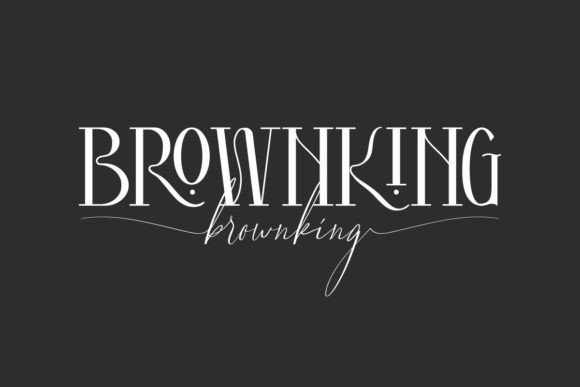
Dive into the world of Brownking Font, a captivating font duo that exudes elegance and sophistication. This mesmerizing font family, crafted by the talented vintype, features an alluring serif display font and a stunning calligraphy signature script, making it the perfect choice for designers seeking to create designs that leave a lasting impression.
With Brownking Font as your creative companion, you'll effortlessly elevate your projects to new heights. Whether you're designing logos, posters, branding, invitations, greeting cards, social media graphics, or any other visual masterpiece, this font duo will infuse your work with a unique and captivating charm. You'll find that Brownking Font seamlessly blends the classic beauty of serif typography with the flowing grace of calligraphy, resulting in designs that radiate sophistication and timeless elegance.
More than just a font, Brownking Font is an experience that will transform your creative journey. Let your imagination soar as you explore the endless possibilities that await with this versatile font duo. You'll discover that Brownking Font is the perfect choice for expressing yourself and capturing the essence of your creative vision.